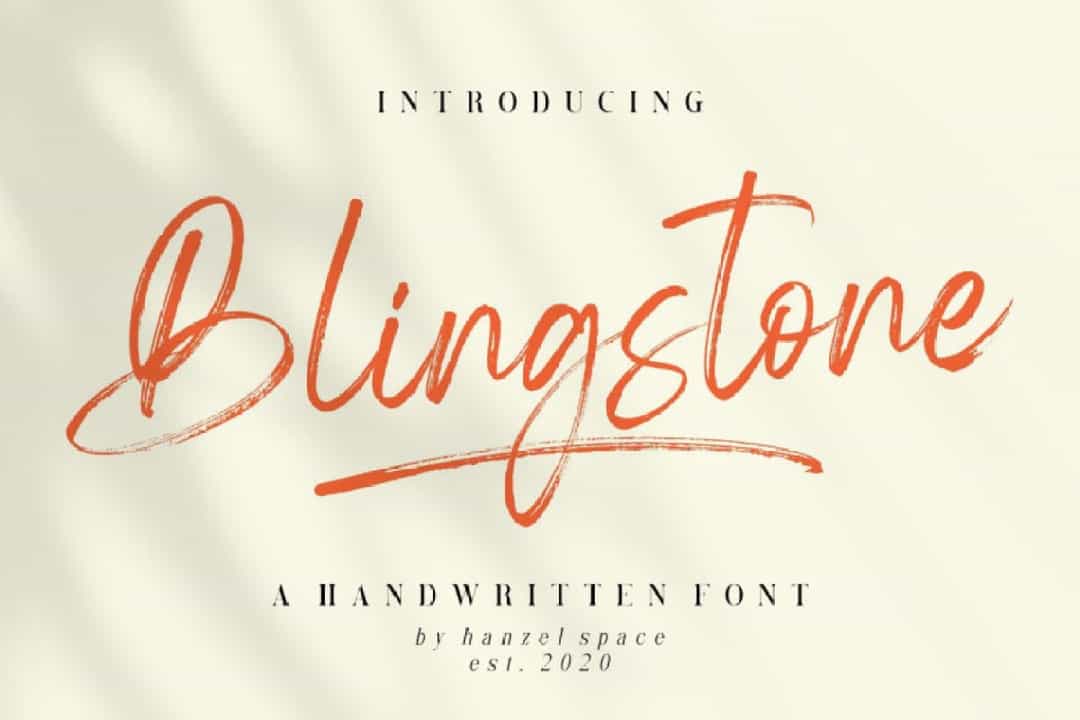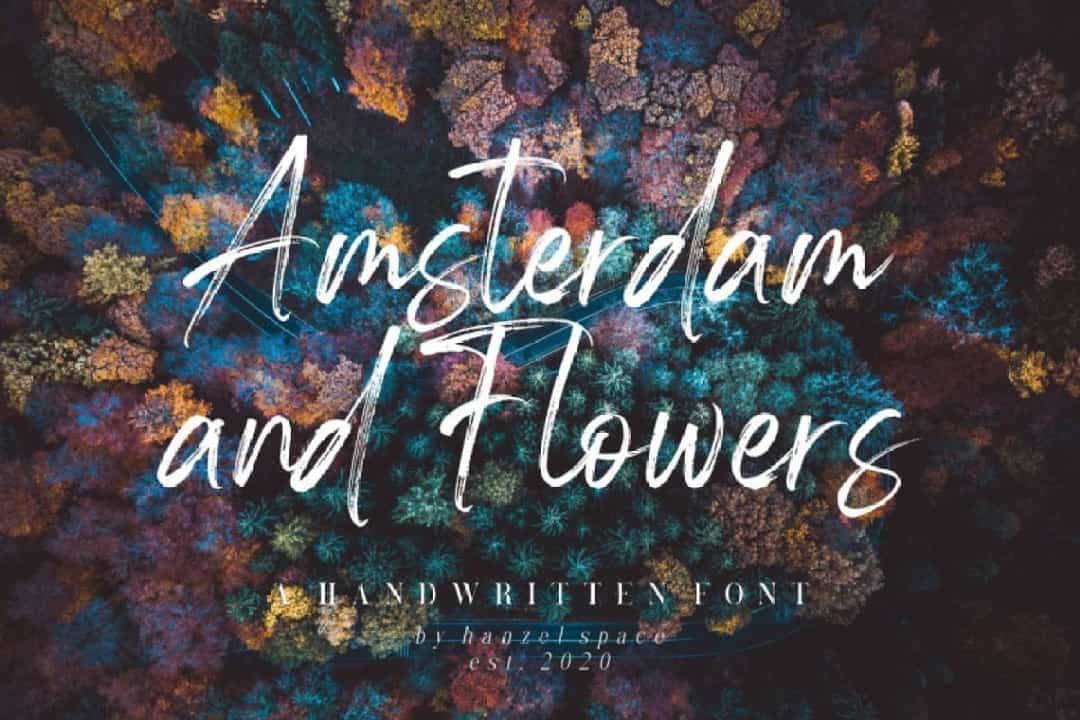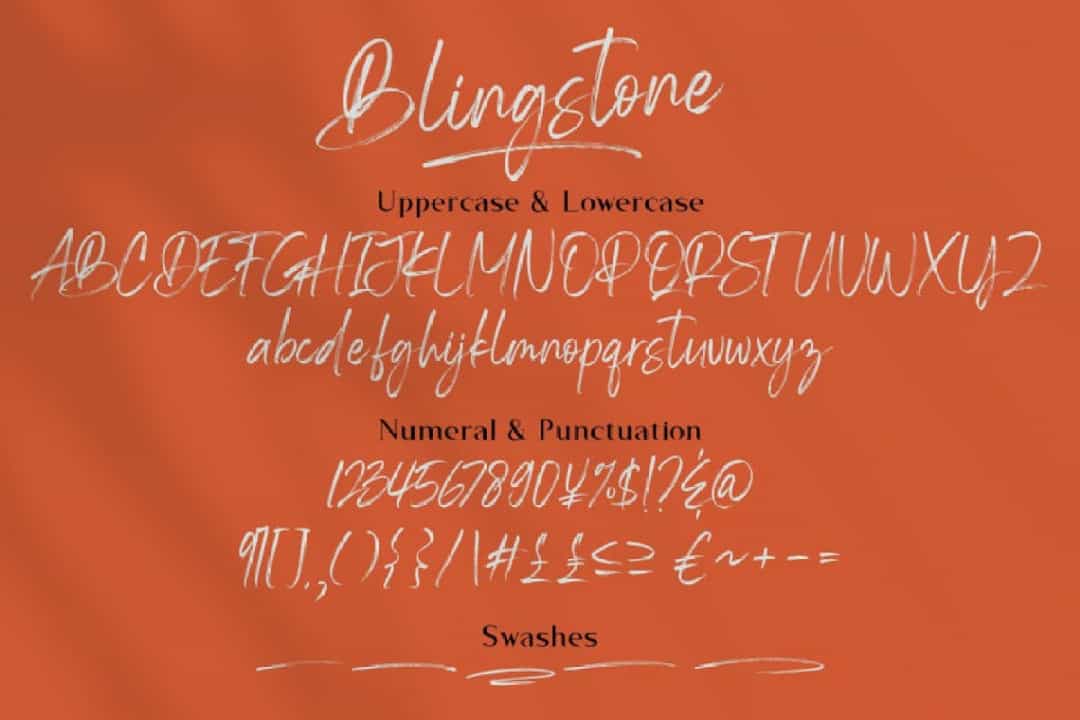
Blingstone is an elegant and fashionable handwritten script, which has been designed by Mary Klingstone – an expert in handwriting. Blingstone is unique in that it allows for the letters to be added millions of ways to the code, so you have the ability to create and design the words in the exact manner that they are to be displayed.